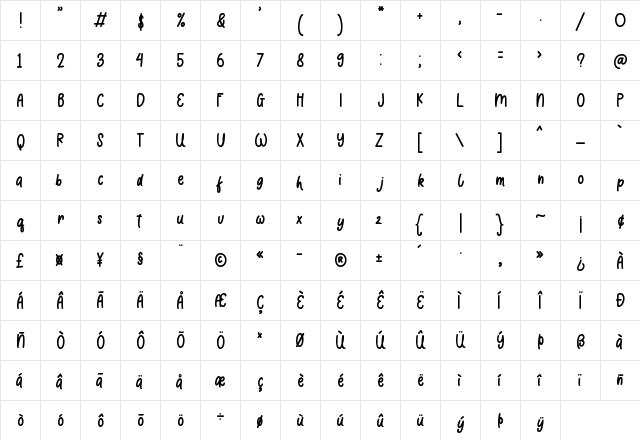
Comic Boys Regular Font Preview
Comic Boys Regular
Comic Boys Regular Font Details
Design Context for Comic Boys Typeface
Comic Boys trades formality for fun, with bouncy, characterful letterforms that bring warmth and energy to any project.
Font Pairing: Pairs well with a rounded or humanist sans for body copy, maintaining the friendly tone without relying on Comic Boys to carry extended reading.
Pro Tip: Use Comic Boys at larger display sizes where its expressive character can land. Pair with a clean, simple sans for body copy to maintain readability.